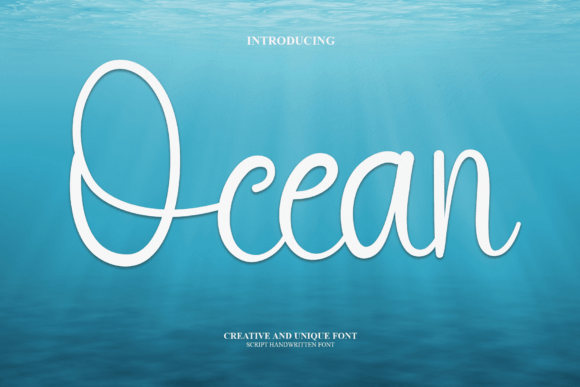
About Ocean Font
“Ocean” is an exquisite script font that effortlessly blends a modern and unique shape with a natural writing style. This font provides a versatile platform for creating stunning typographic designs, making it an excellent choice for various applications, including branding, web design, editorial work, prints, crafts, and quotes.
The modern and distinctive shape of “Ocean” adds a contemporary and captivating touch to your designs. Its natural writing style imparts an authentic and organic feel, making it suitable for a wide range of creative projects. Whether you’re working on logotypes, wedding invitations, romantic cards, labels, packaging, or personalizing names, “Ocean” brings an element of elegance to your designs.
The versatility of “Ocean” becomes apparent as it seamlessly adapts to different design contexts. It excels in creating memorable and expressive logotypes, leaving a lasting impact on your audience. Additionally, its charm makes it ideal for designing wedding invitations, where a sense of sophistication and uniqueness is highly desirable.
“Ocean” effortlessly brings your most creative ideas to life. From the world of branding to the intricacies of crafting romantic cards, this font adds a special and refined touch to your projects. Witness how it transforms your designs, making them visually appealing and authentically expressive.
Embrace the versatility and beauty of “Ocean” as you embark on your creative journey. Whether you’re designing for digital platforms or crafting tangible items, this font serves as a reliable companion, ready to elevate your typographic designs to new heights.